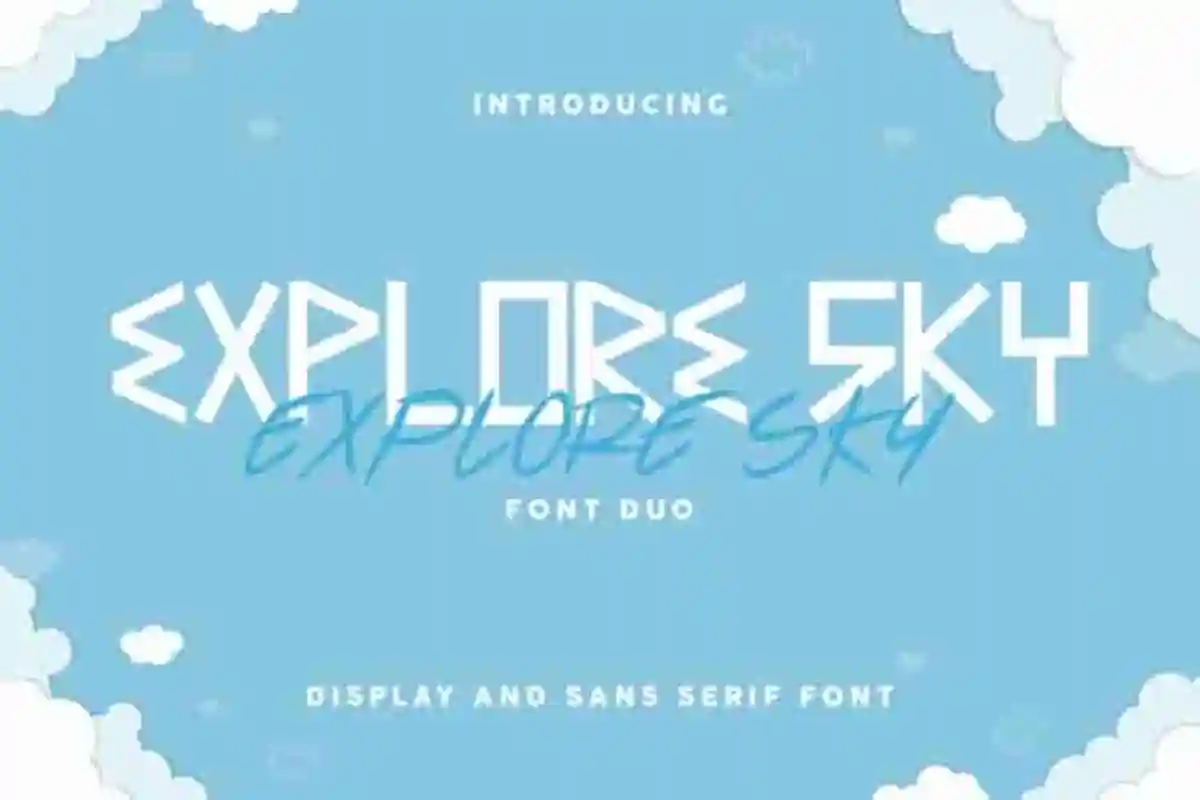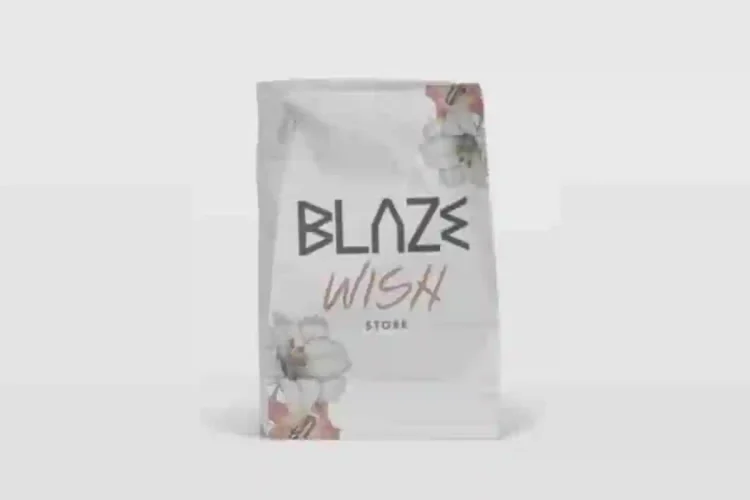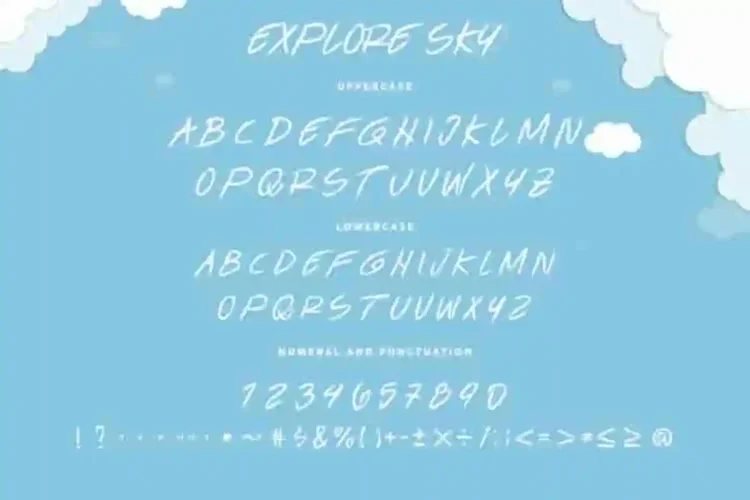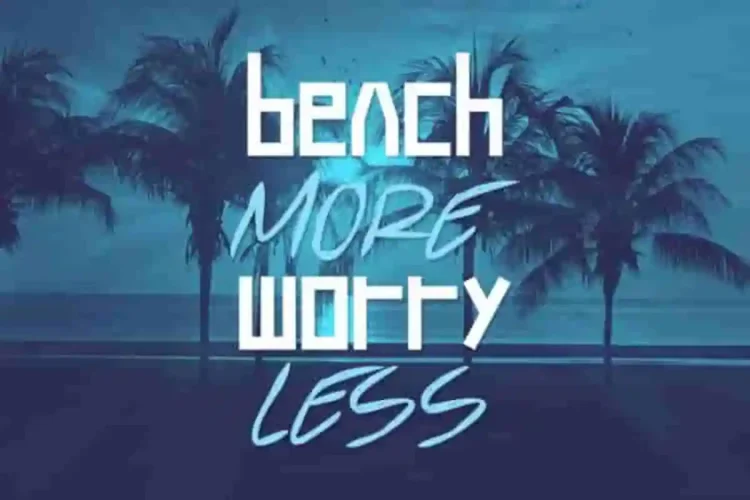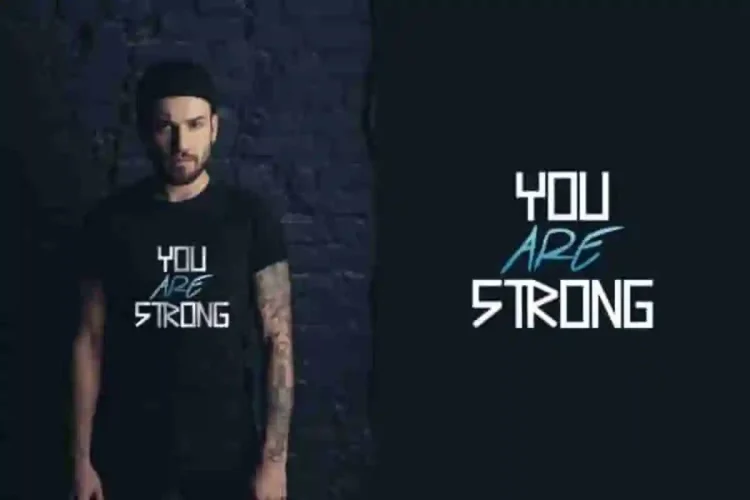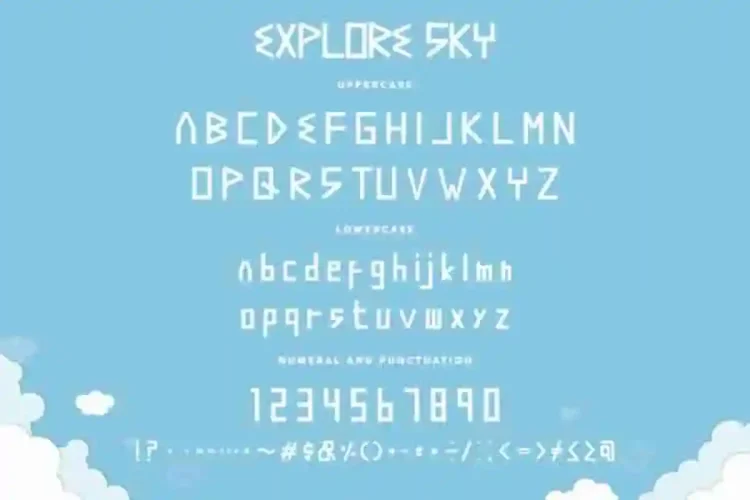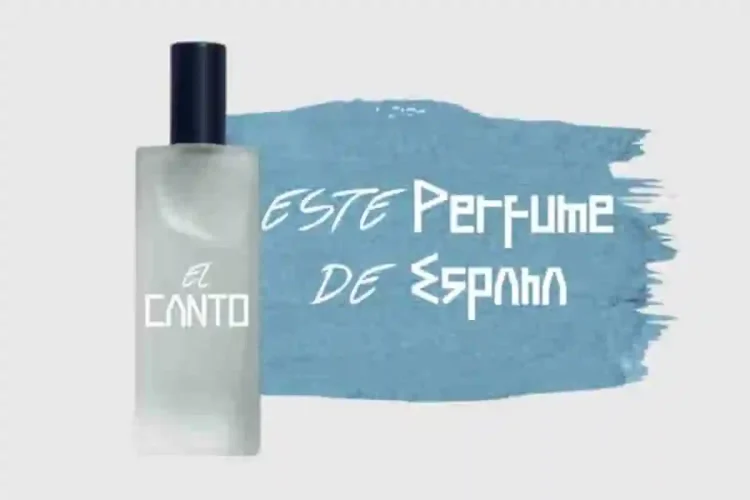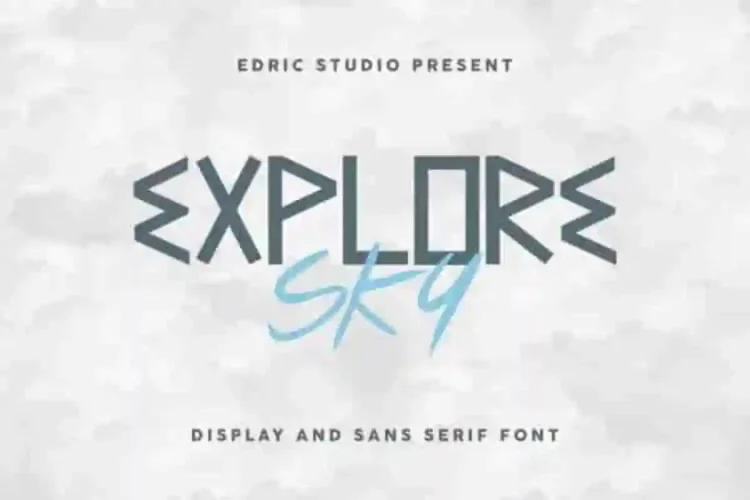
Explore Sky Display Font Duo
Please welcome! Our newest creation : Explore Sky Display Font Duo
This is a Display, handcrafted from our Studio here in Indonesia. The artists/designers of this beautiful tyeface are Saila, Ega and Suci.
Explore Sky Display Font Duo is an exclusive font family with two different styles. This font has a stunning characters set, perfectly managed with well spaced and kerning.